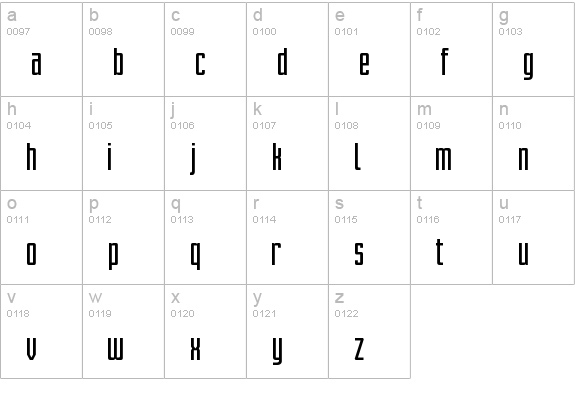
Vixar ASCI Font Details
Introducing Vixar ASCI font, a versatile and modern typeface that is sure to catch your eye. With its sleek and futuristic design, Vixar ASCI is the perfect choice for any project that requires a contemporary and cutting-edge look. But what sets Vixar ASCI apart from other fonts? Well, it's not just its stunning aesthetics, but also the fact that it is completely free! That's right, you can download this incredible font without spending a dime. Whether you're designing a logo, creating a website, or working on a digital presentation, Vixar ASCI will elevate your work to a whole new level. Its clean lines and balanced letterforms make it easy to read, ensuring that your message is delivered with clarity and style. But don't just take our word for it, see for yourself! Vixar ASCI is freely available to download at FontsMarket.com, a trusted source for high-quality fonts. With just a few clicks, you can enhance your designs with this exceptional font. So why wait? Give your projects the edge they deserve with Vixar ASCI font. Download it today, and let your creativity soar.